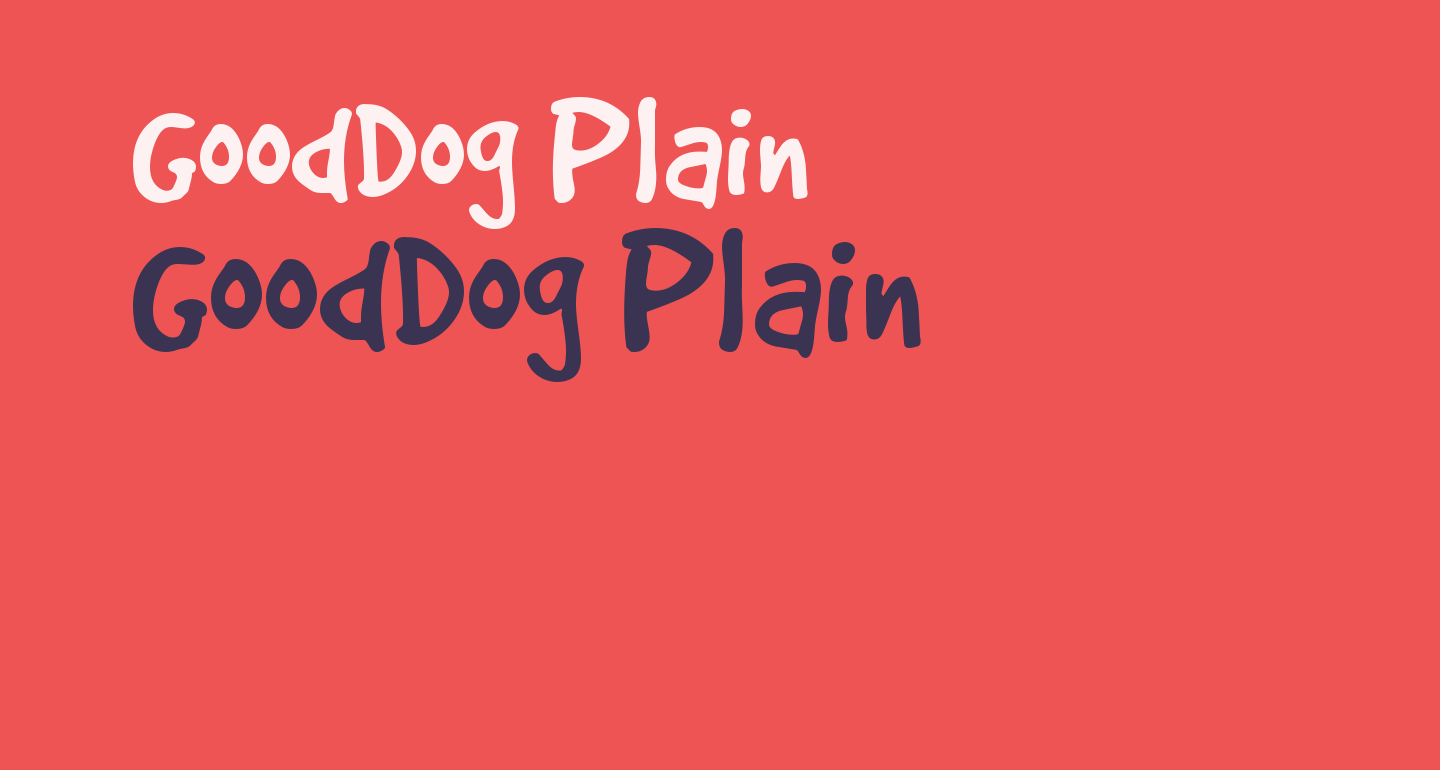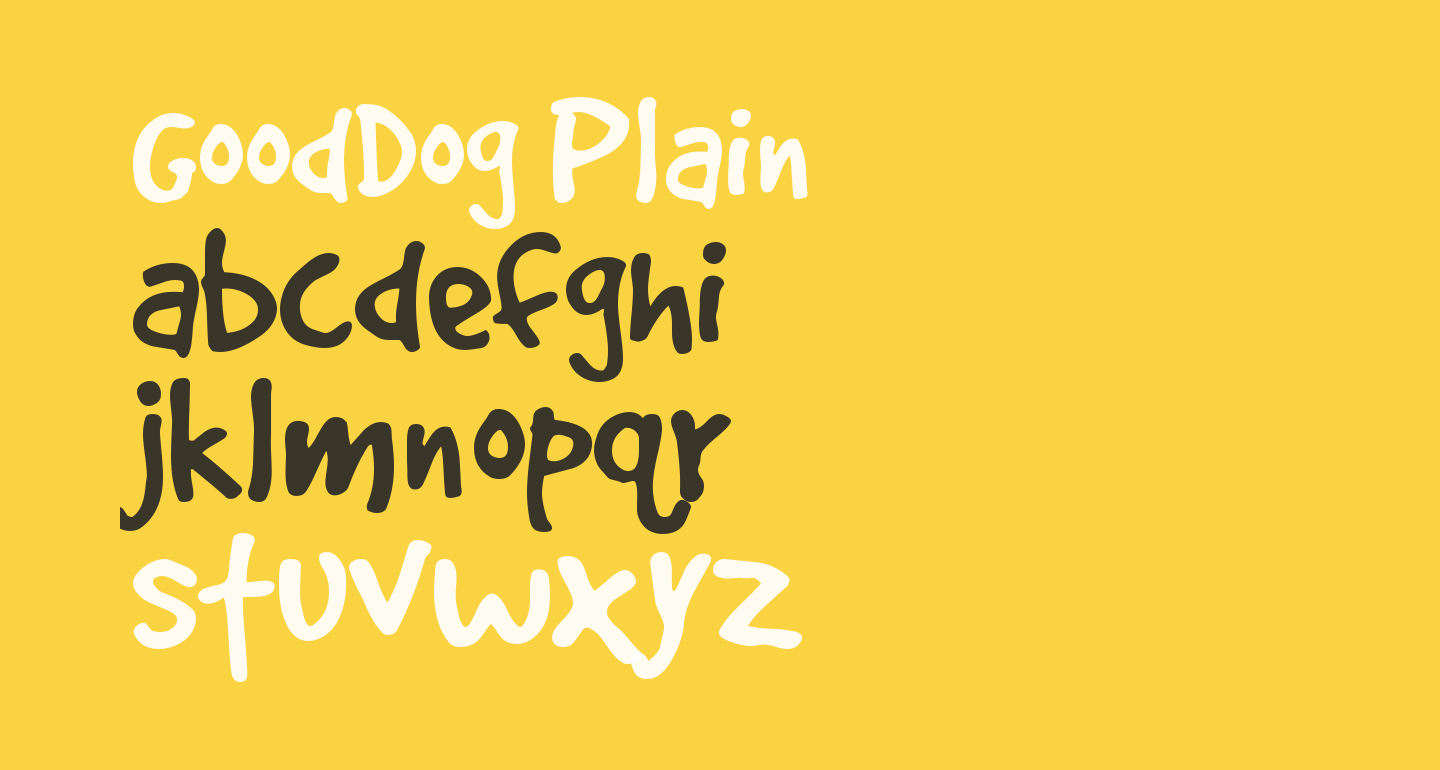
This Is The Latest Handwritten Font From Fonthead Design!
On this page you can download gooddog plain font version macromedia fontographer 4.1.5 6/1/99, which belongs to the family gooddog plain (regular tracing). Fonthead design is located in wilmington, delaware. Ethan designed over 150 fonts including the popular free font gooddog.